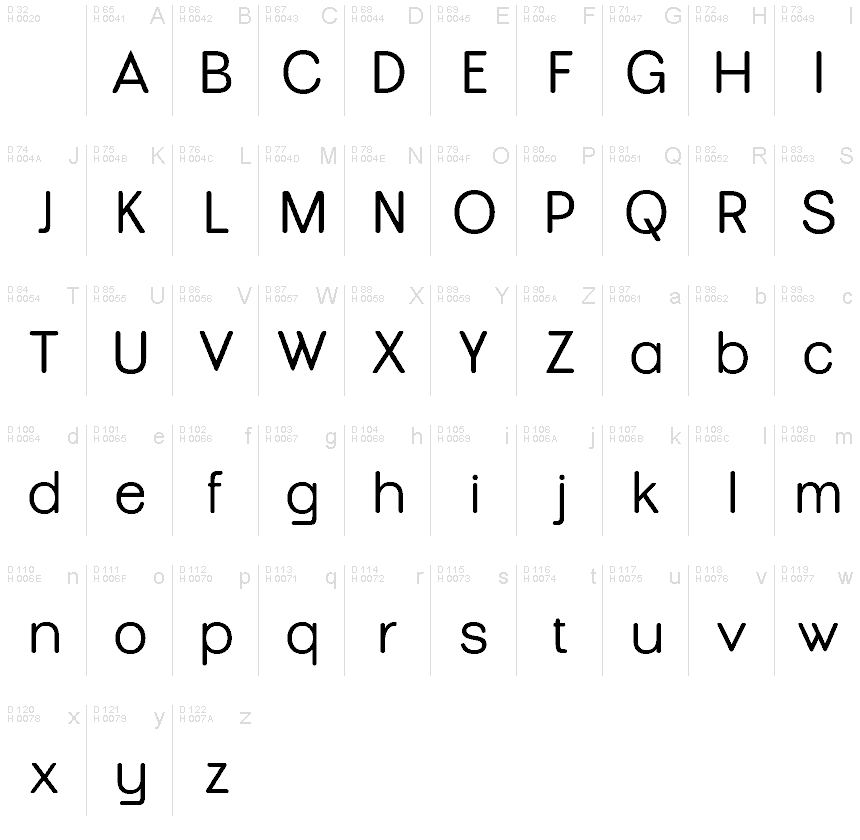
HeilyRounded-Regular Demo
Heily Rounded font by Craft Supply Co. is a modern and minimalistic font with geometric influences. Its smooth curves, clean design, and contemporary appeal make it ideal for a variety of applications that require a stylish touch.
This free rounded font’s most relevant use cases include startups branding, high-technology product presentations, website design, blog titles, social media posts and covers, video game packaging designs and posters, mobile apps graphic design projects as well as typographic logo creation.